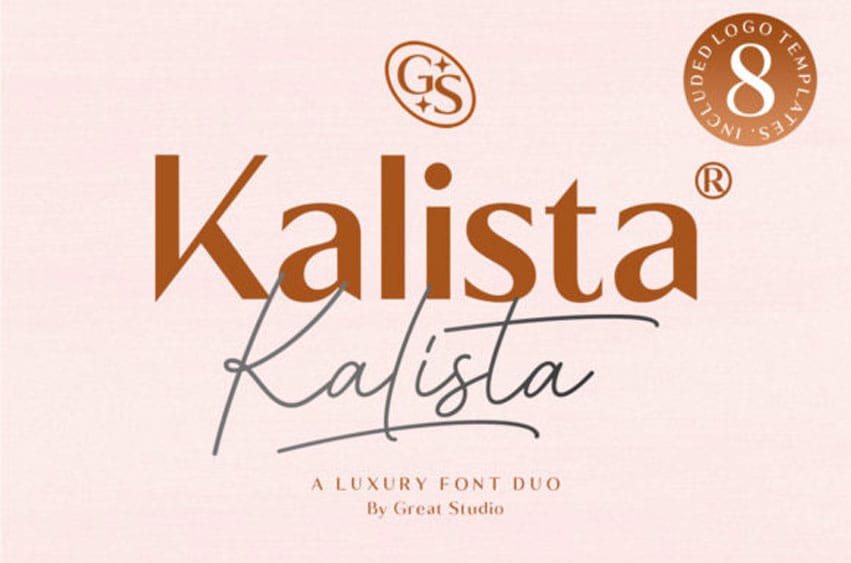
Kalista Font is a luxurious duo font, which comes with a combination of modern and elegant styles, namely sans serif and signature. You can combine these two to create a beautiful typography.
This handcrafted style makes it perfect to use in all your design projects be it logos, labels, packaging designs, blog titles, posters, wedding designs, social media posts and much more.